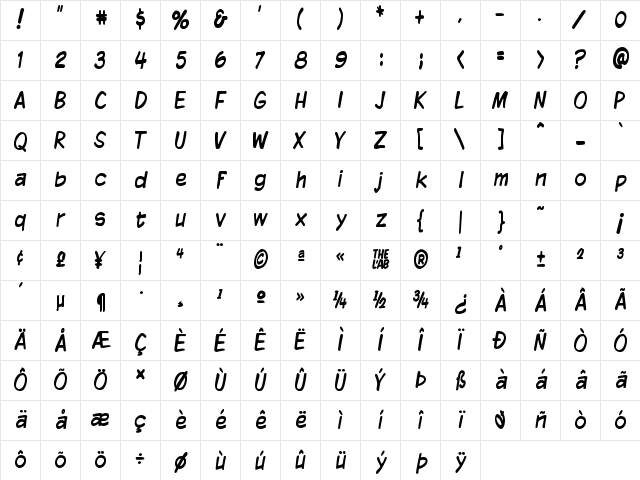
Komika Display Tight Regular
Designer: WolfBainX
Design Context for Komika Display Tight
Komika Display Tight is built around its visual character rather than neutral utility - its distinctive forms are designed to make an impression at display sizes.
Font Pairing: Pair with a clean neutral sans-serif for body copy to let Komika Display Tight's character lead without overwhelming the composition.
Pro Tip: Use Komika Display Tight exclusively at display sizes - it was designed to be seen, not read at length. Let a neutral companion handle body copy.